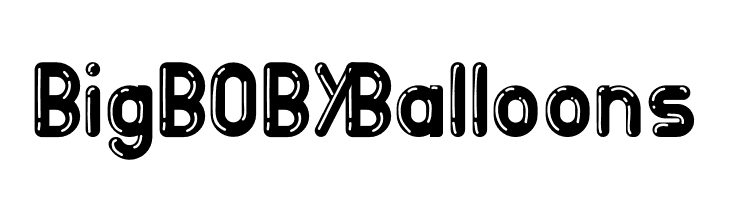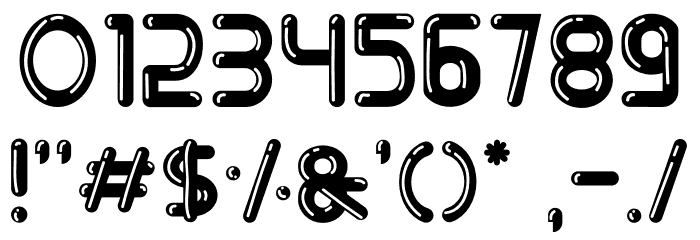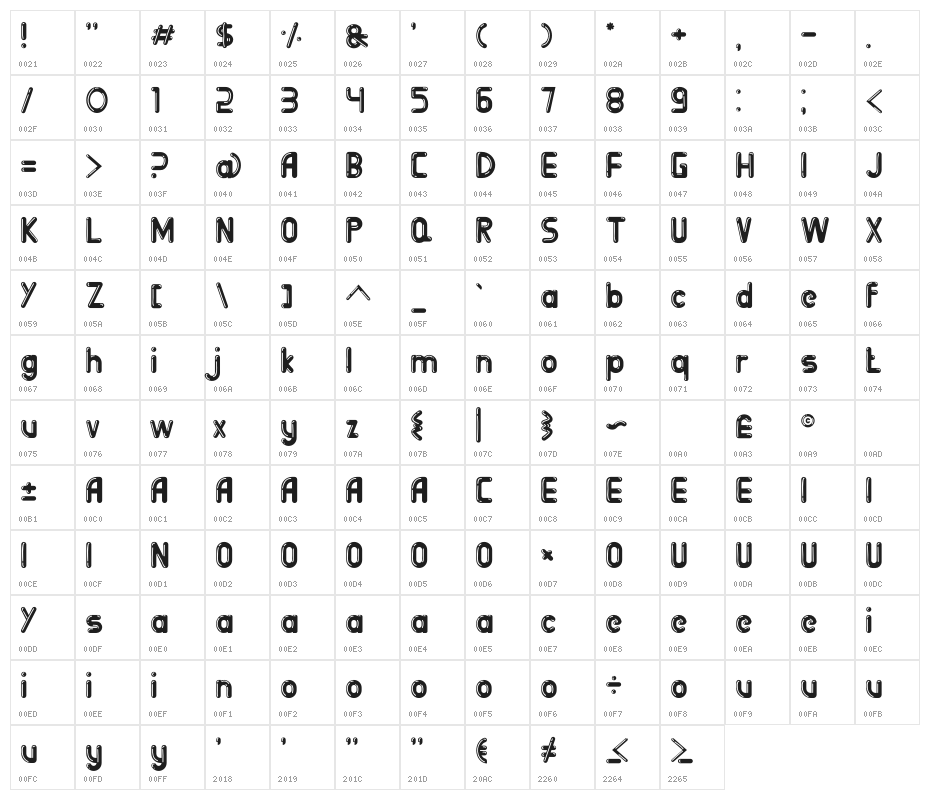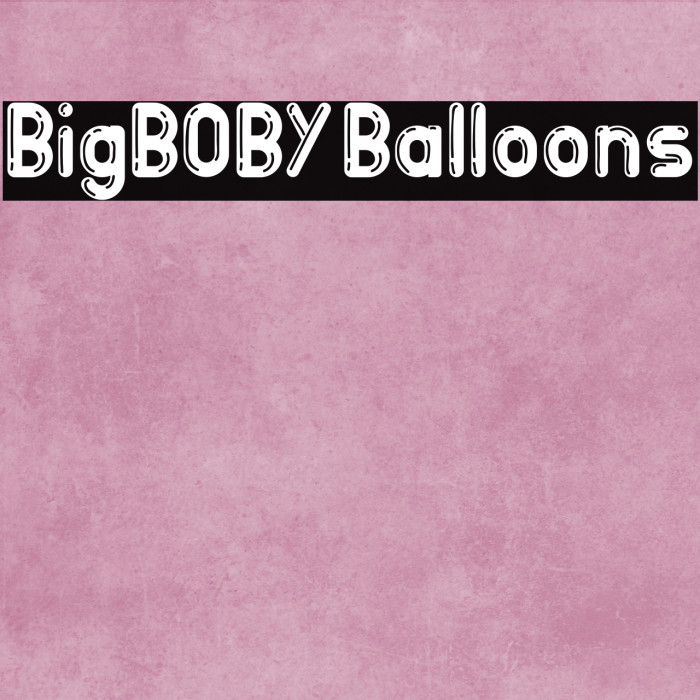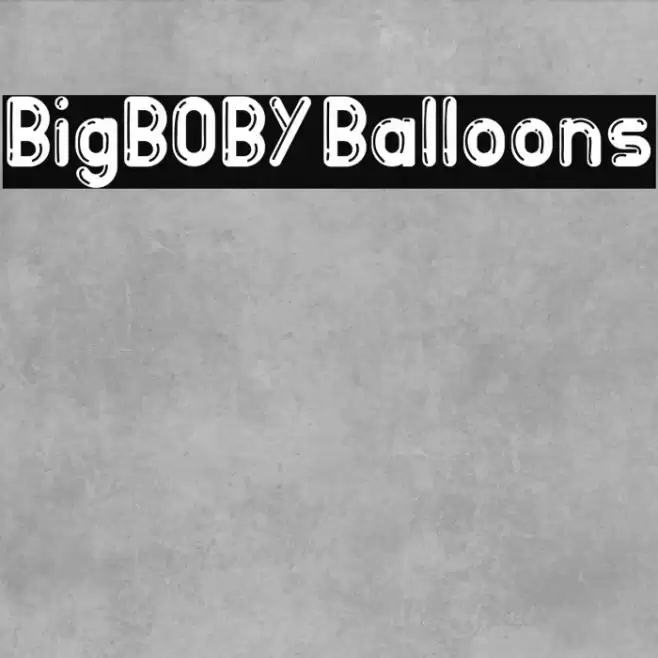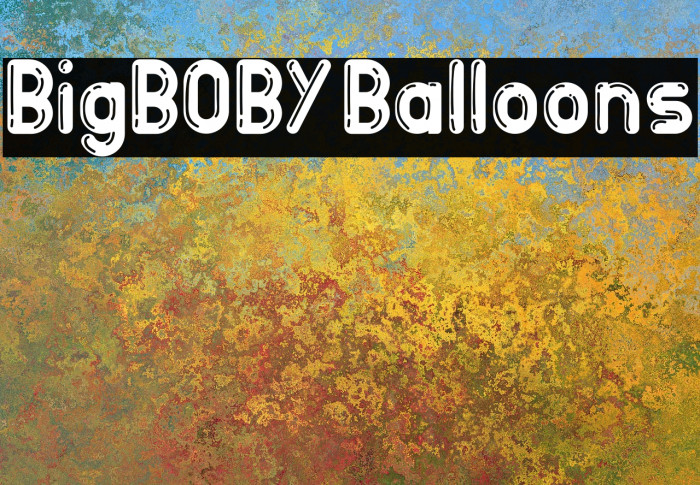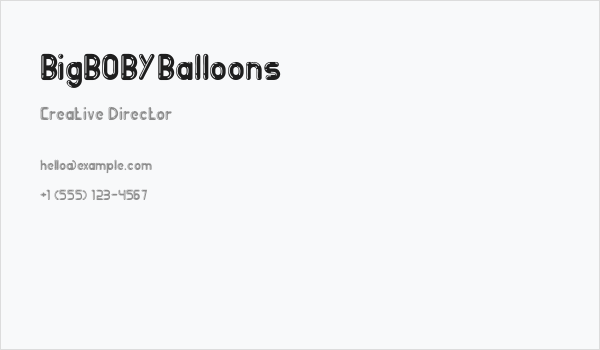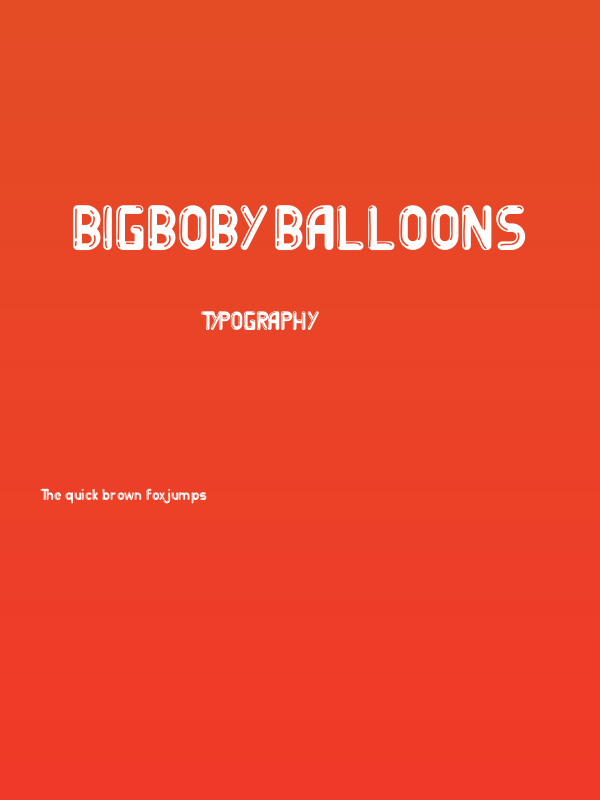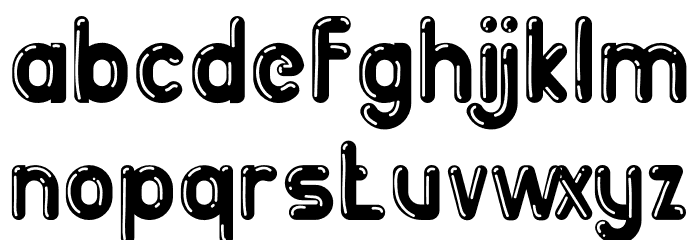
BigBOBY Balloons Font
BigBOBY Balloons Description
This playful and whimsical font features a balloon-like design, with each character resembling inflated shapes. The letters have a three-dimensional appearance, with highlights and shadows that give them a puffy, rounded look. The font maintains a consistent thickness throughout, adding to its cohesive and uniform style. It is highly decorative, making it ideal for fun and informal projects. The characters are well-spaced, ensuring readability despite their unique design. This font is perfect for capturing attention and adding a touch of joy and creativity to any design.
| Proposed Projects | Ideal for children's party invitations, playful branding, toy packaging, and festive event posters. |